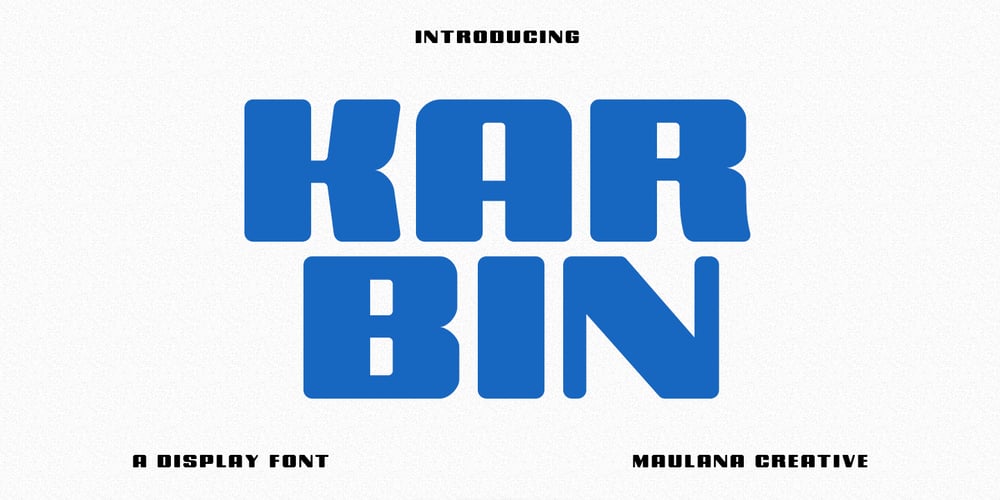
MC Karbin
MC Karbin font
MC Karbin Font Family was designed by Gilang Maulana and published by Maulana Creative. MC Karbin contains 2 styles and family package options. Karbin is an All Caps sans Display font with slant style. Round Heavy stroke, fun character with a bit of ligatures and alternates. To give you an extra creative work. Karbin font support multilingual more than 100+ language. This font is good for logo design, Social media, Movie Titles, Books Titles, a short text even a long text letter and good for your secondary text font with script or serif. Make a stunning work with Karbin font. Cheers, Maulana Creative